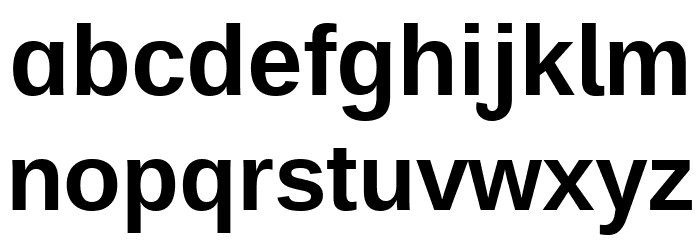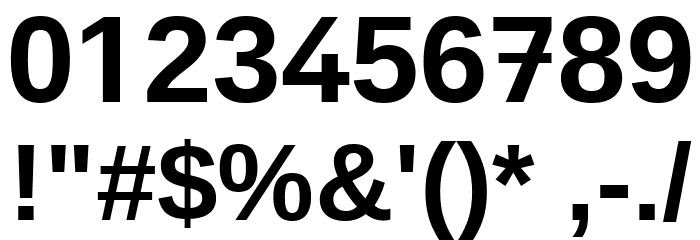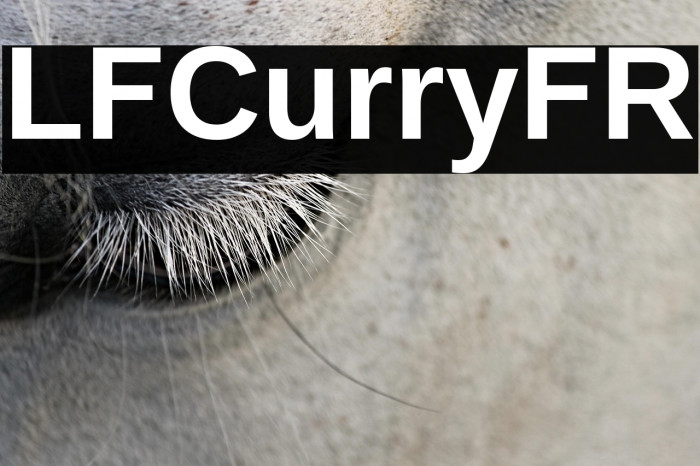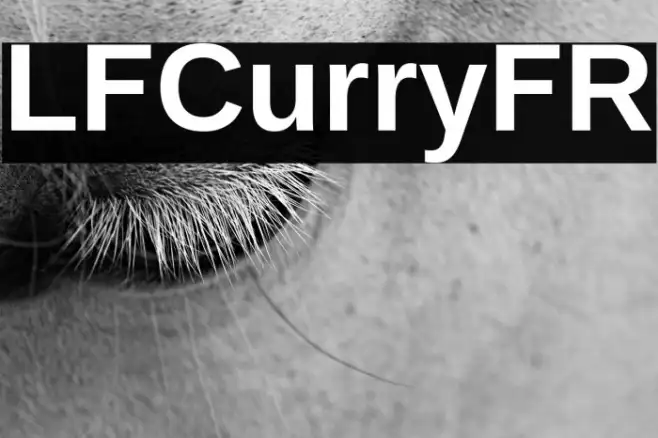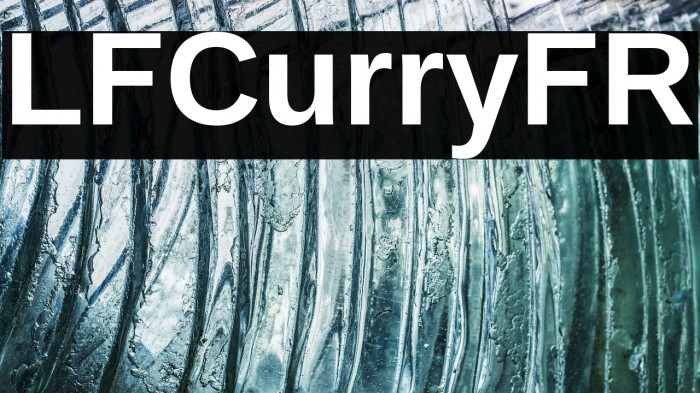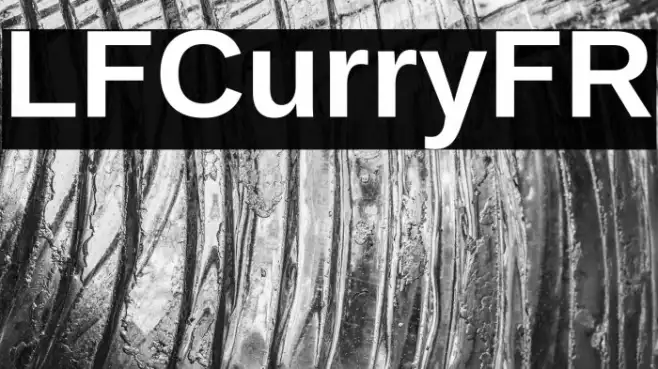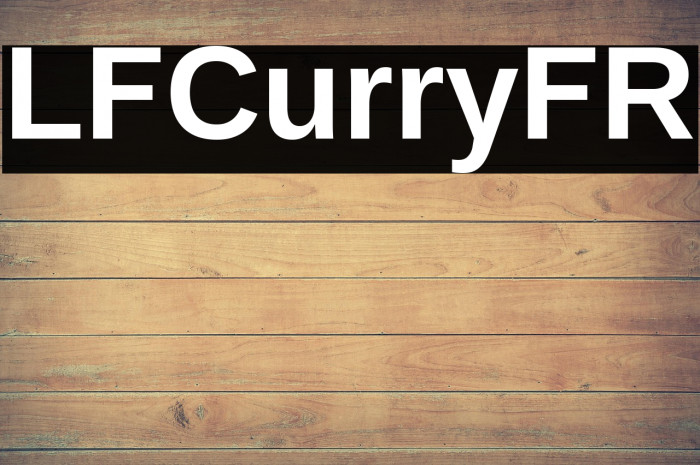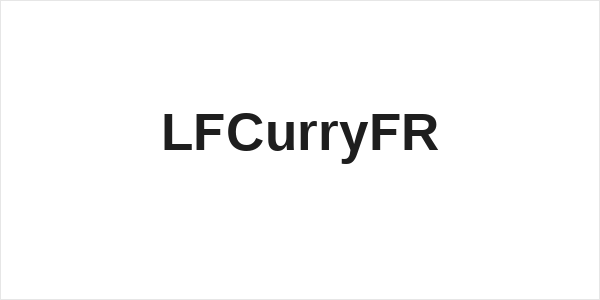
LFCurryFR Font
This font features a clean and modern sans-serif style with uniform stroke widths, providing a balanced and professional appearance. The characters are well-proportioned, offering excellent readability across both uppercase and lowercase letters. The numerals are distinct and clear, making them suitable for various applications. Special characters are included, maintaining the font's cohesive look. The overall design is versatile, making it ideal for both digital and print media.
A modern, clean sans-serif font with excellent readability.
- Proposed Projects: Ideal for corporate branding, website design, digital media, and print materials.